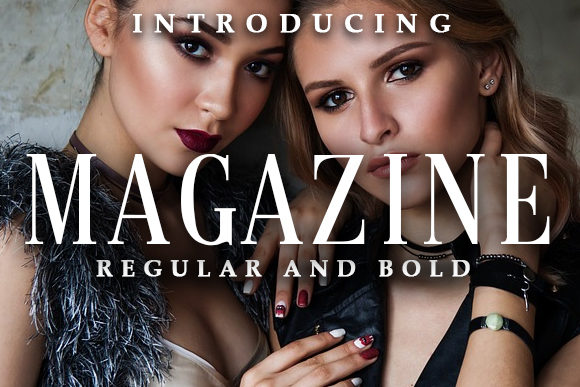
Looking for a stylish and captivating serif font for your next project? Look no further than Magazine Font, created by the talented designer vladimirnikolic.
Crafted with care and attention to detail, Magazine Font is sure to become a favorite among designers and creatives alike. With its classic serif style and elegant curves, this font is the perfect choice for everything from logos to social media posts to DIY projects.
Whether you're looking to elevate your branding or add a touch of sophistication to your designs, Magazine Font is the perfect choice. With its timeless style and versatile applications, this font is sure to impress.
But Magazine Font isn't just stylish and versatile—it's also incredibly easy to use. With its clean lines and simple design, this font is a breeze to work with, making it the perfect choice for designers of all skill levels.